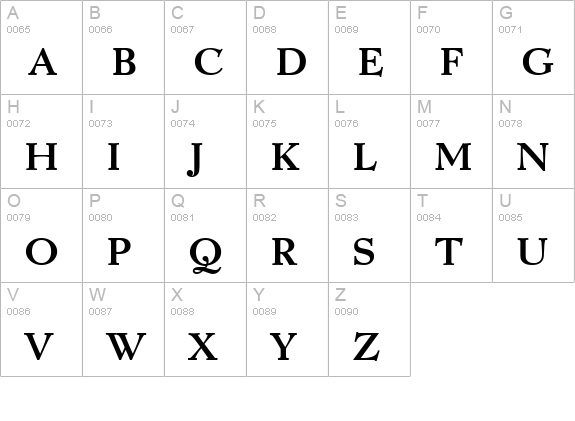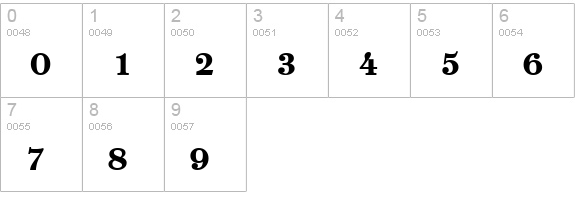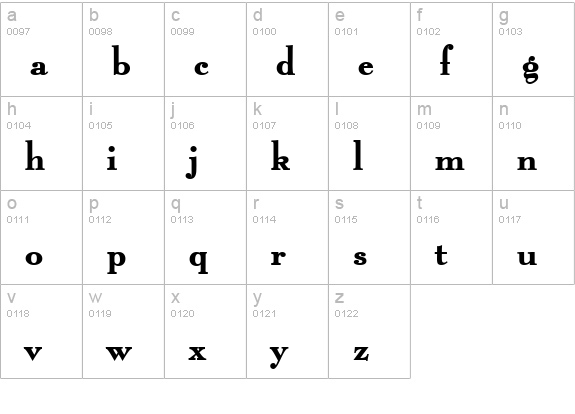
Luciano Bold is a strong, high-contrast variant in the Luciano typeface family \xE2\x80\x94 well suited to headlines, attention-grabbing titles, and strong calls-to-action.
Luciano Bold font exudes timeless elegance and modern sophistication with its bold and sleek design. This versatile typeface is perfect for creating eye-catching headlines, branding materials, and stylish designs. Its strong and distinctive letterforms make a statement while maintaining readability and clarity. The Luciano Bold font is available for free download at FontsMarket.com, making it easily accessible for designers, creatives, and typographers looking to add a touch of sophistication to their projects. With its clean lines and elegant curves, this font is sure to elevate any design and leave a lasting impression. Download Luciano Bold today and experience the power of this striking typeface.